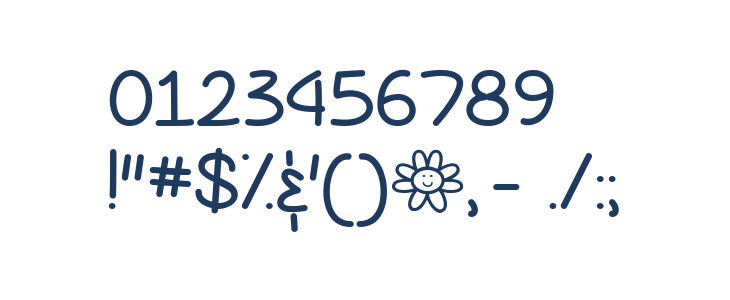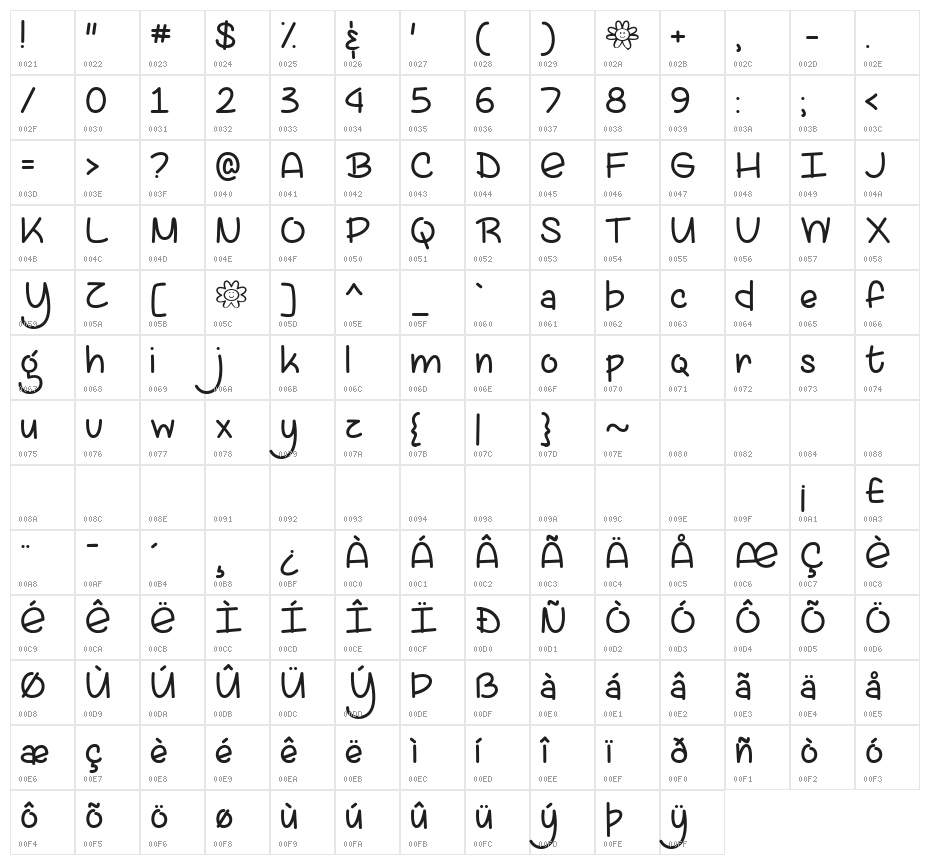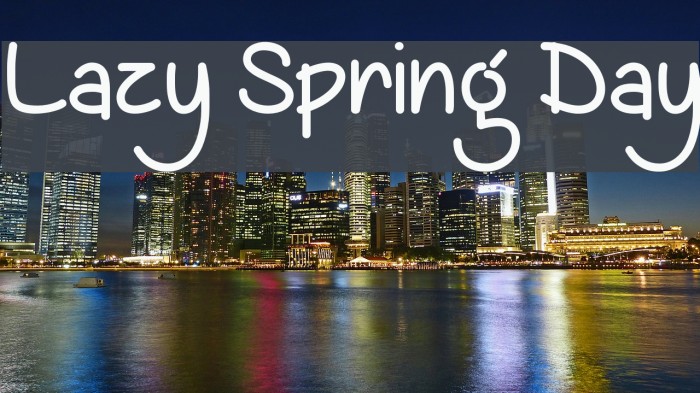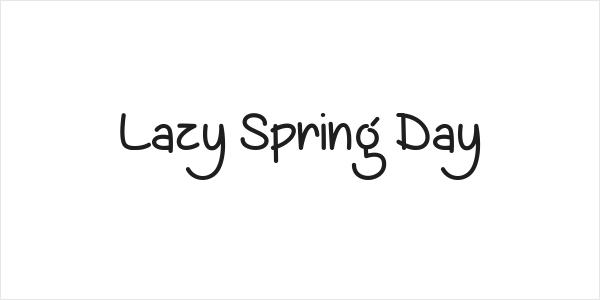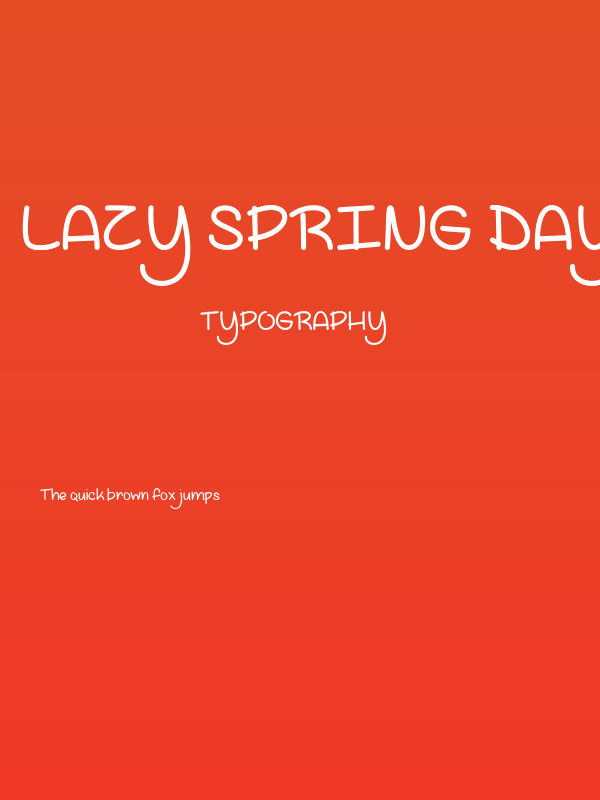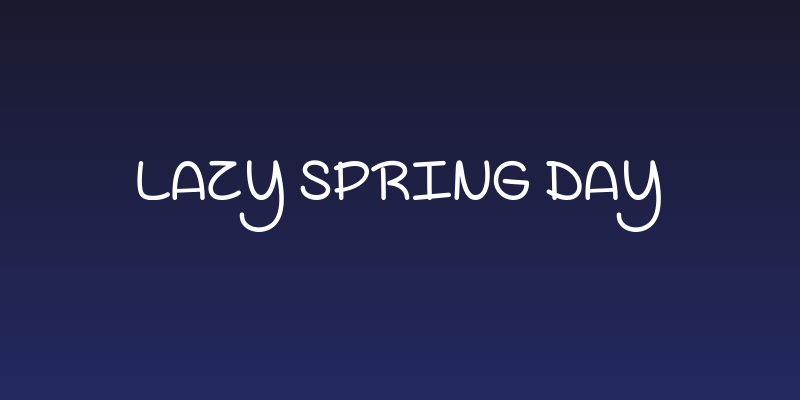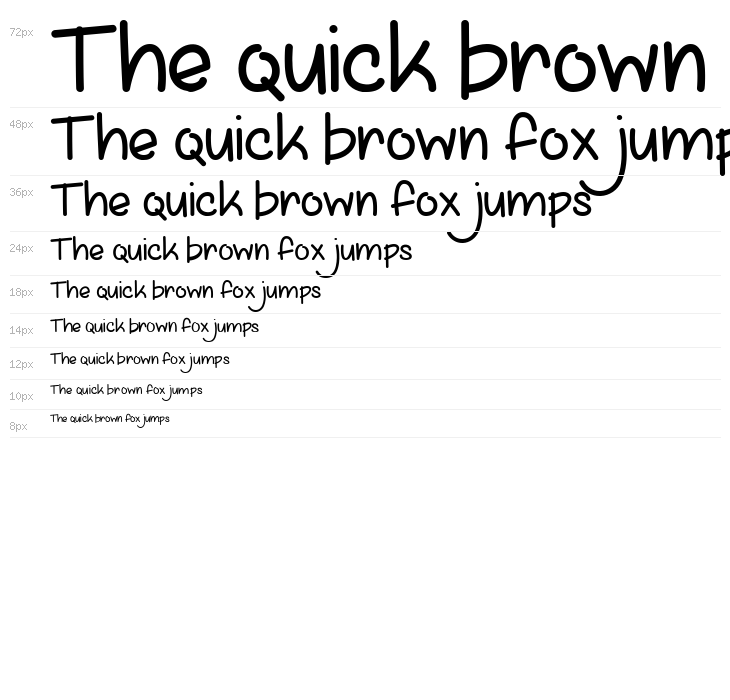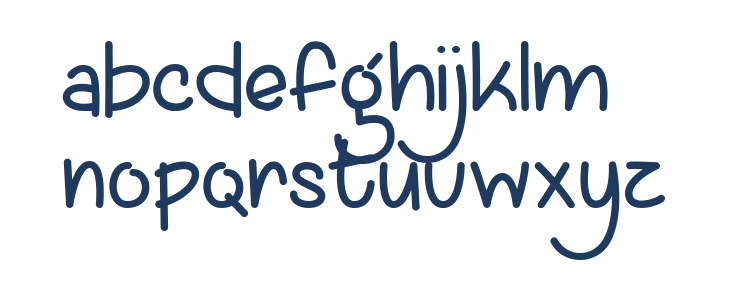
Lazy Spring Day Font
Lazy Spring Day Description
This playful and whimsical font features rounded, smooth edges and a handwritten style that exudes a casual and friendly vibe. The characters are slightly irregular, adding to the charm and informal feel. The uppercase and lowercase letters maintain a consistent style, with a slight slant that gives a sense of movement and energy. Numbers and special characters are designed to match the playful aesthetic, making them suitable for creative and fun projects. The font's overall appearance is approachable and light-hearted, making it ideal for designs that aim to convey warmth and friendliness.
| Overall Style | Casual, Playful |
| Use Case | Headlines, Logos, Invitations |
| Proposed Projects | Ideal for children's books, greeting cards, playful branding, and casual invitations. |